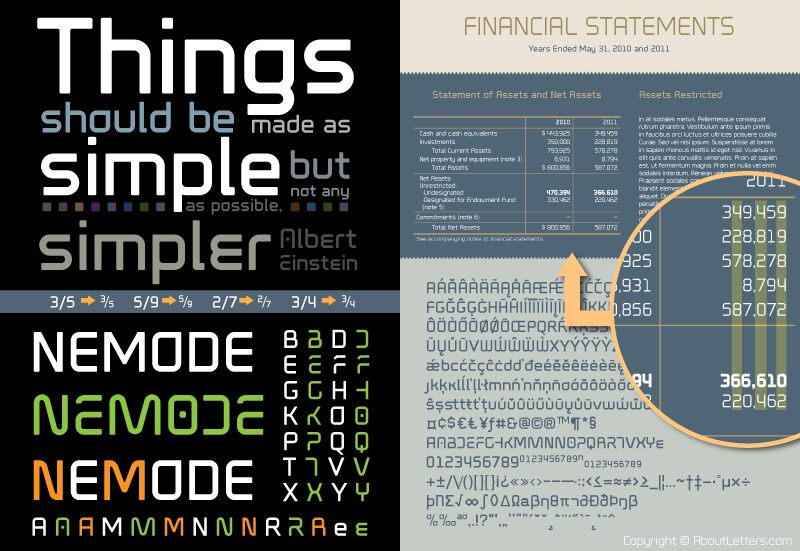
Nemode by Darim Kim is a free geometric sans serif with tall proportions, rounded outer corners, and an unmistakably futuristic profile. Broad arches and soft rectangular shapes give the letters a smooth, engineered silhouette closer to custom lettering than a neutral workhorse. The changing widths are especially distinctive, moving between slender vertical forms and broad characters without losing the family's steady, controlled construction.
Electronic music and retro-future technology are natural subjects for Nemode, making it useful for music posters, game graphics, tech branding, and fashion packaging. Its strongest role is sleek branding for digital products and electronic music labels.
Nemode is a geometric sans-serif display typeface.
Nemode includes OpenType features such as fractions, kerning, and stylistic alternatives. Some glyphs have more than one alternative.
The font’s numerals have been spaced for consistent text layout.
The family includes six fonts: Light, Regular, and Bold, along with their oblique styles.